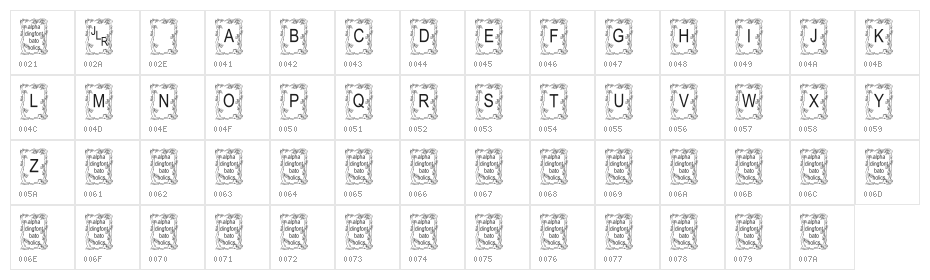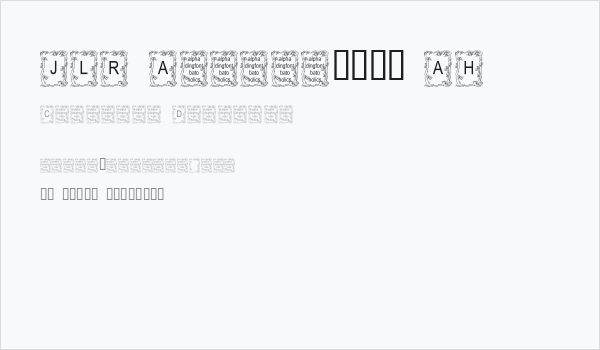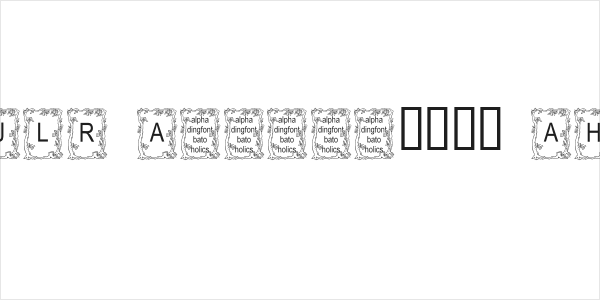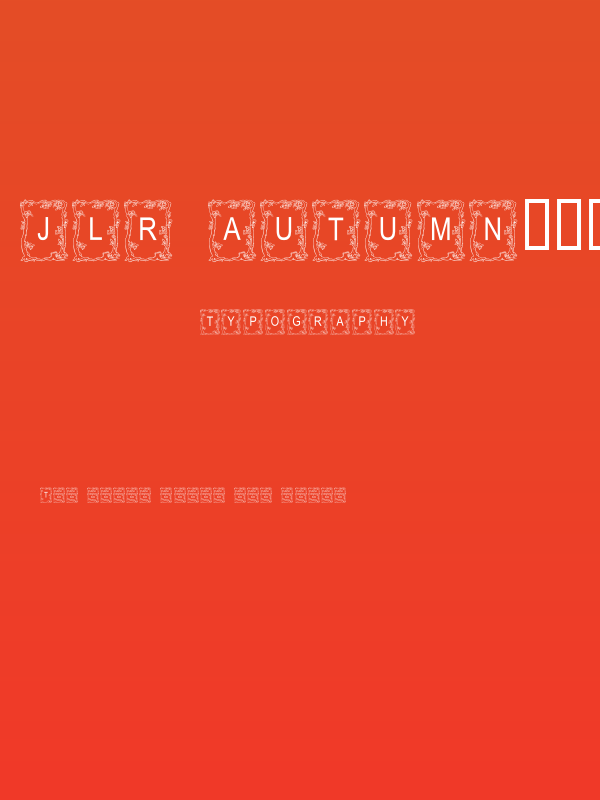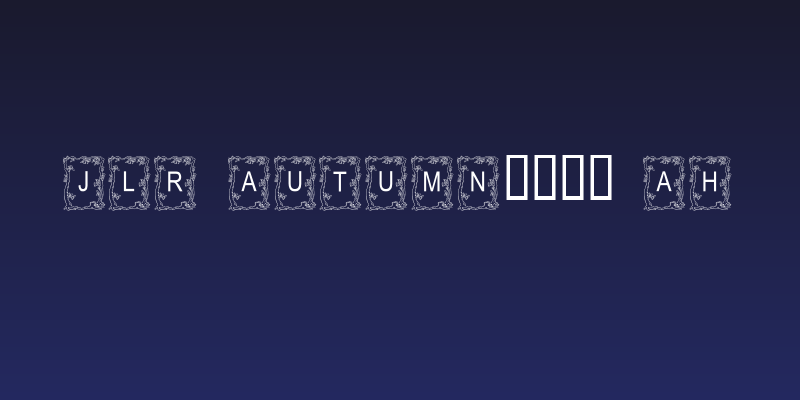
JLR Autumn2000 AH Font
JLR Autumn2000 AH Description
This font features a decorative style with ornate borders surrounding each character, giving it a vintage and artistic appearance. The uppercase letters are prominently displayed with intricate floral patterns, while the lowercase letters are not visible in the image. The special characters are framed similarly, adding to the cohesive aesthetic. This design is reminiscent of old-fashioned signage or invitations, where elegance and detail are paramount. The font's unique style makes it suitable for projects that require a touch of sophistication and historical charm.
| Proposed Projects | Ideal for wedding invitations, vintage-themed posters, or decorative signage. |